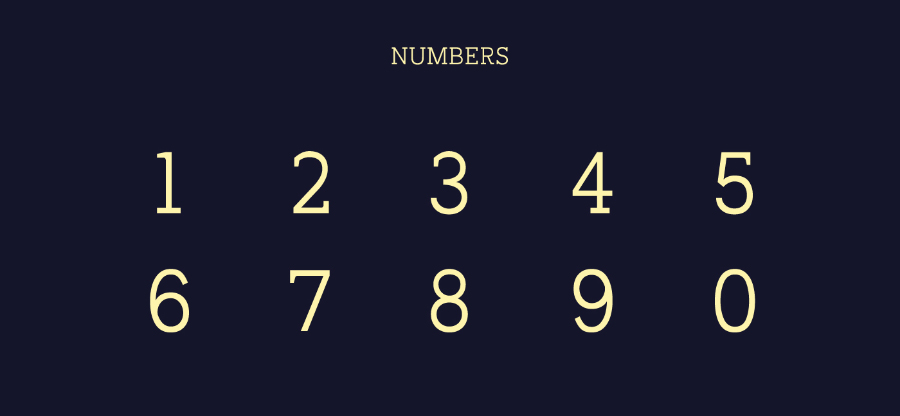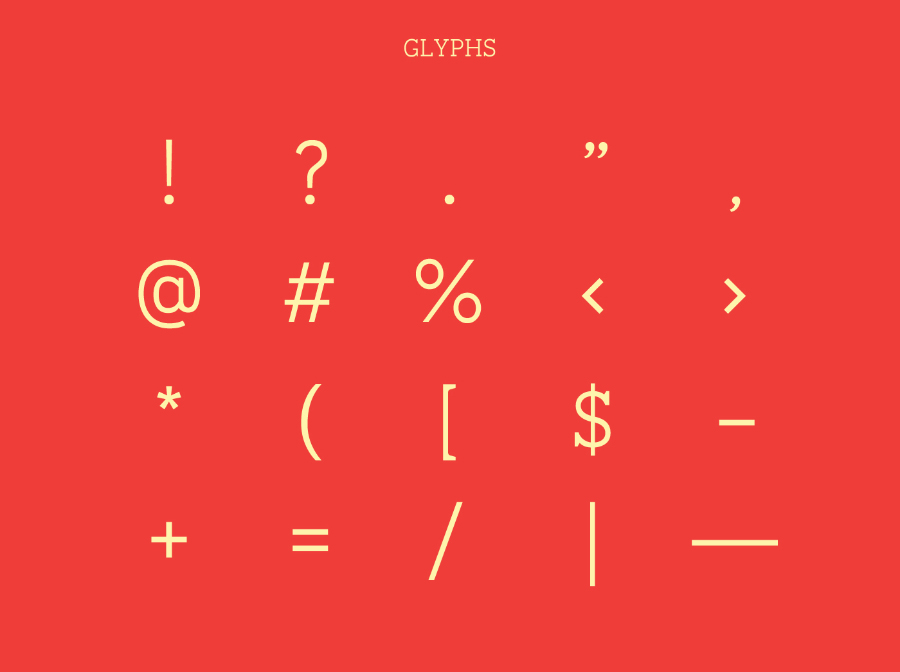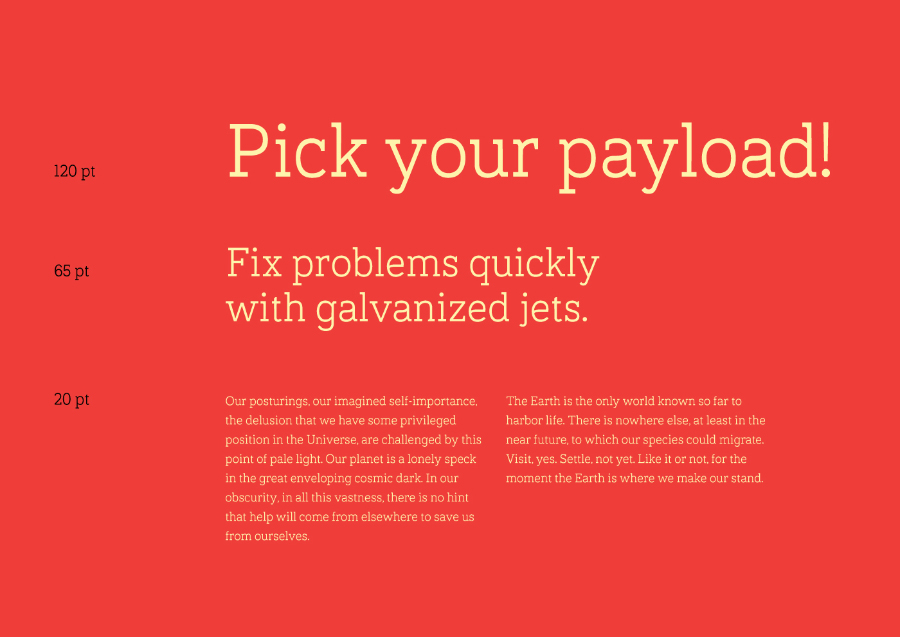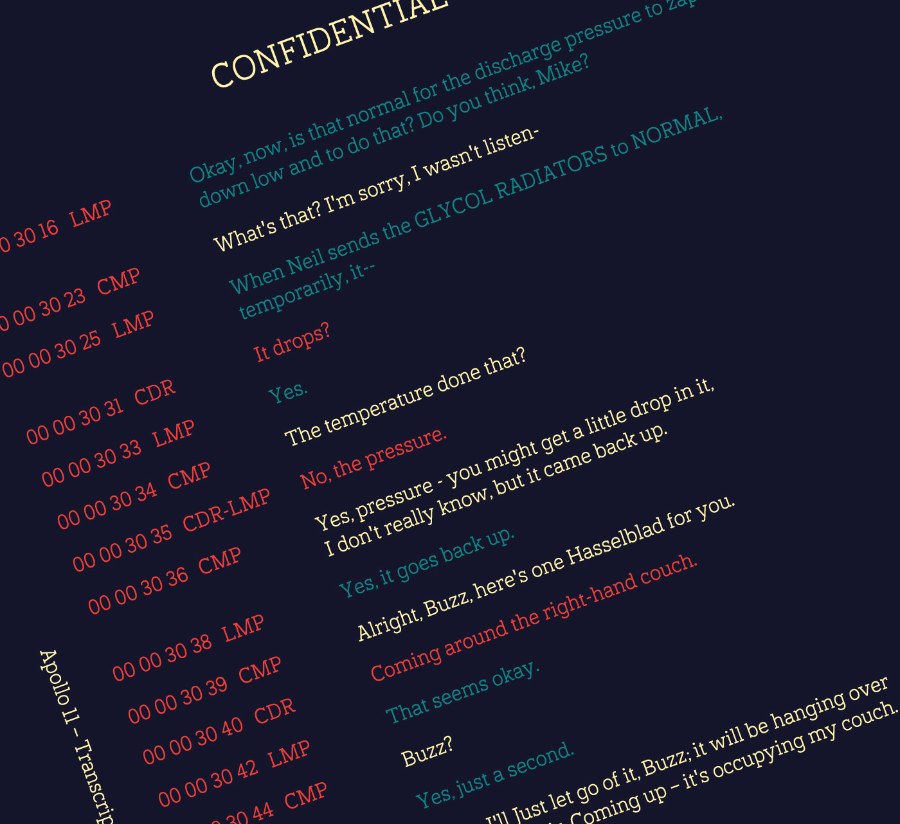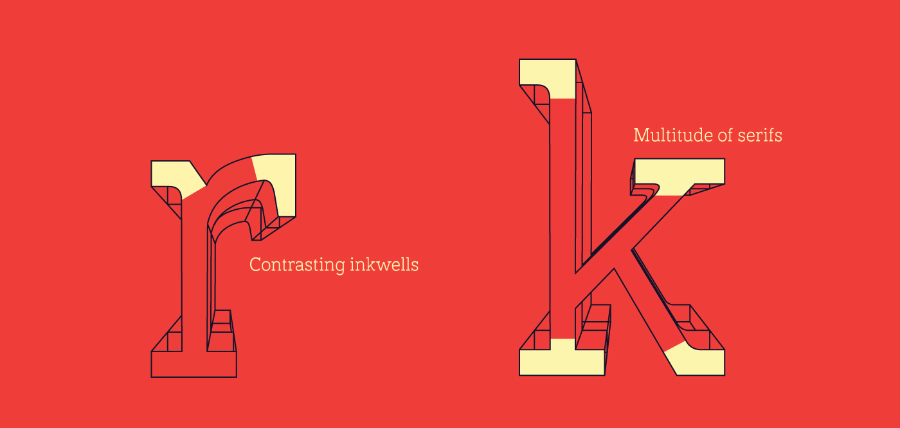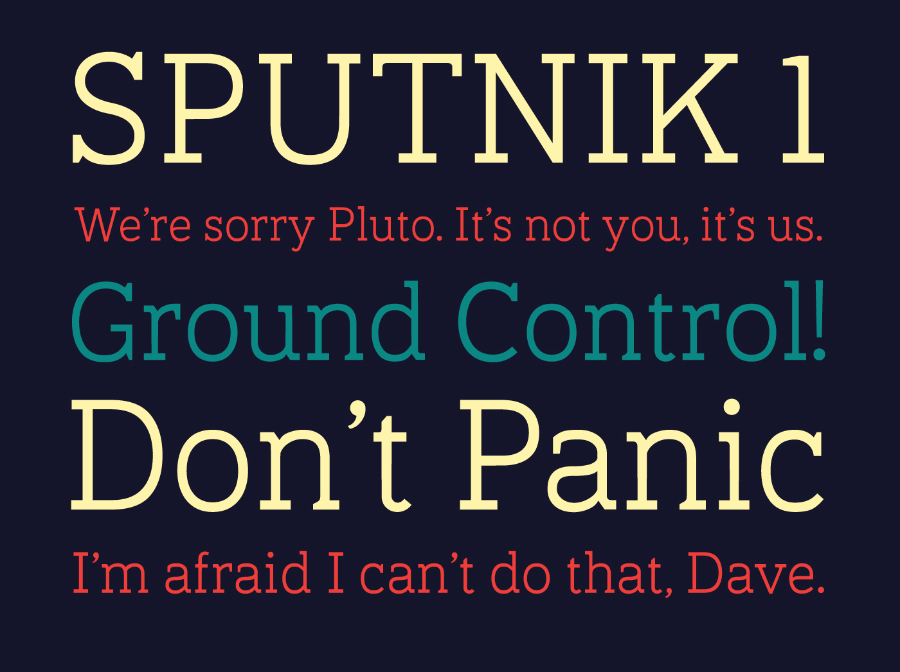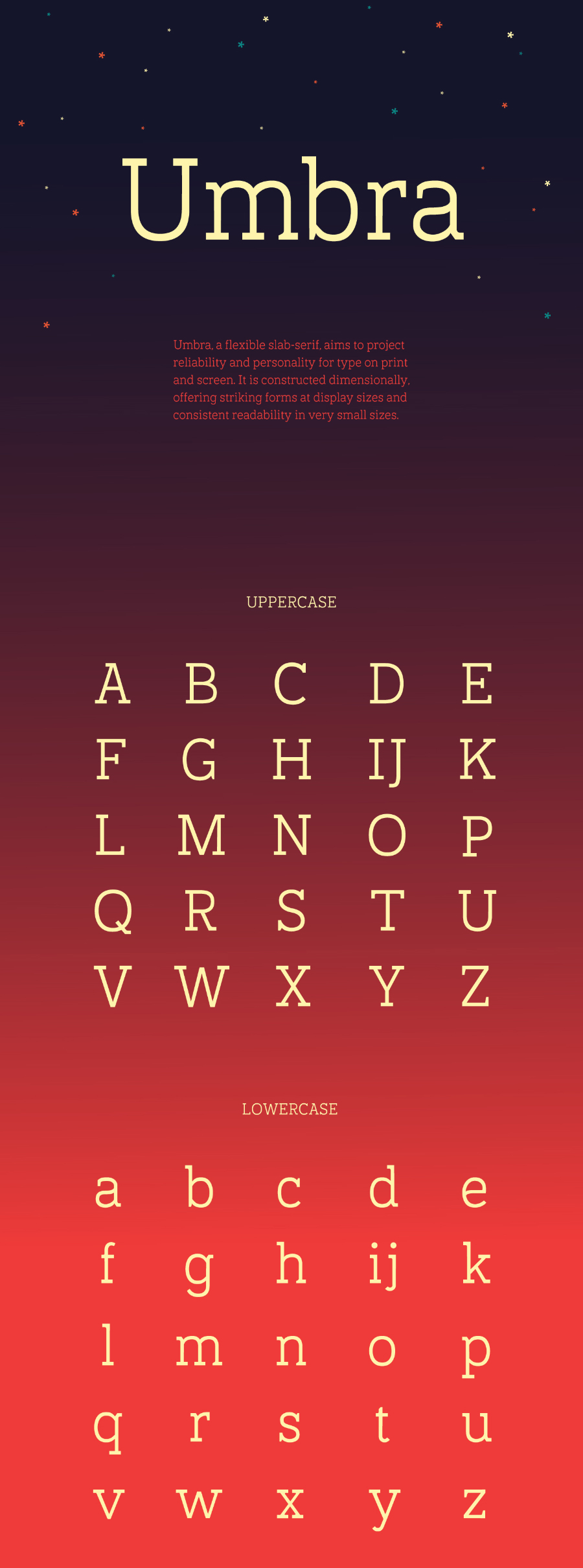
Umbra Free Font
Built with reliability and flexibility, Umbra is a new era of slab-serifs that is used for print and web mediums in display and body sizes.